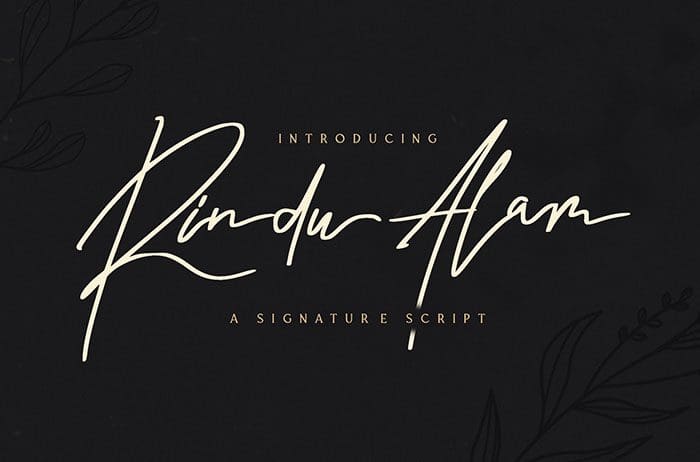
Rindu Alam Signature Font
Rindu Alam signature font, this font is perfect for fashion brand, wedding invitation, business card, logo brand, signature, and also calligraphy. This font is available only for personal use. Created this font by StringLabs. You can also search more freeĀ Signature Fonts. Thanks.